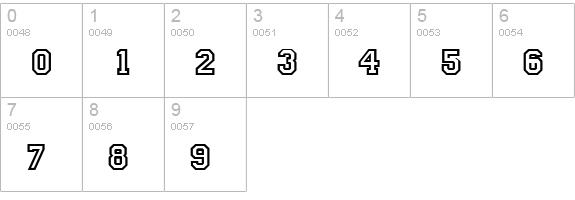
Letterman Regular is the standard, neutral variant in the Letterman typeface family \xE2\x80\x94 well suited to general body text, paragraphs, and standard typographic work.
Letterman Regular is a stylish and versatile font that is perfect for adding a touch of sophistication to your designs. With its clean lines and classic letterforms, this font is sure to make a statement. Whether you're designing a logo, creating a poster, or crafting a social media graphic, Letterman Regular will elevate your design to new heights. This font is not only visually appealing, but it is also incredibly easy to read, making it ideal for both print and digital applications. The balanced proportions and well-defined strokes ensure that your message is delivered with clarity and impact. One of the best things about Letterman Regular is that it is free! That's right, you can download this amazing font for absolutely no cost at FontsMarket.com. This means that you can use it in personal and commercial projects without any restrictions or limitations. So why wait? Take your designs to the next level with Letterman Regular. Download it today from FontsMarket.com and start creating stunning and professional-looking designs that stand out from the crowd.